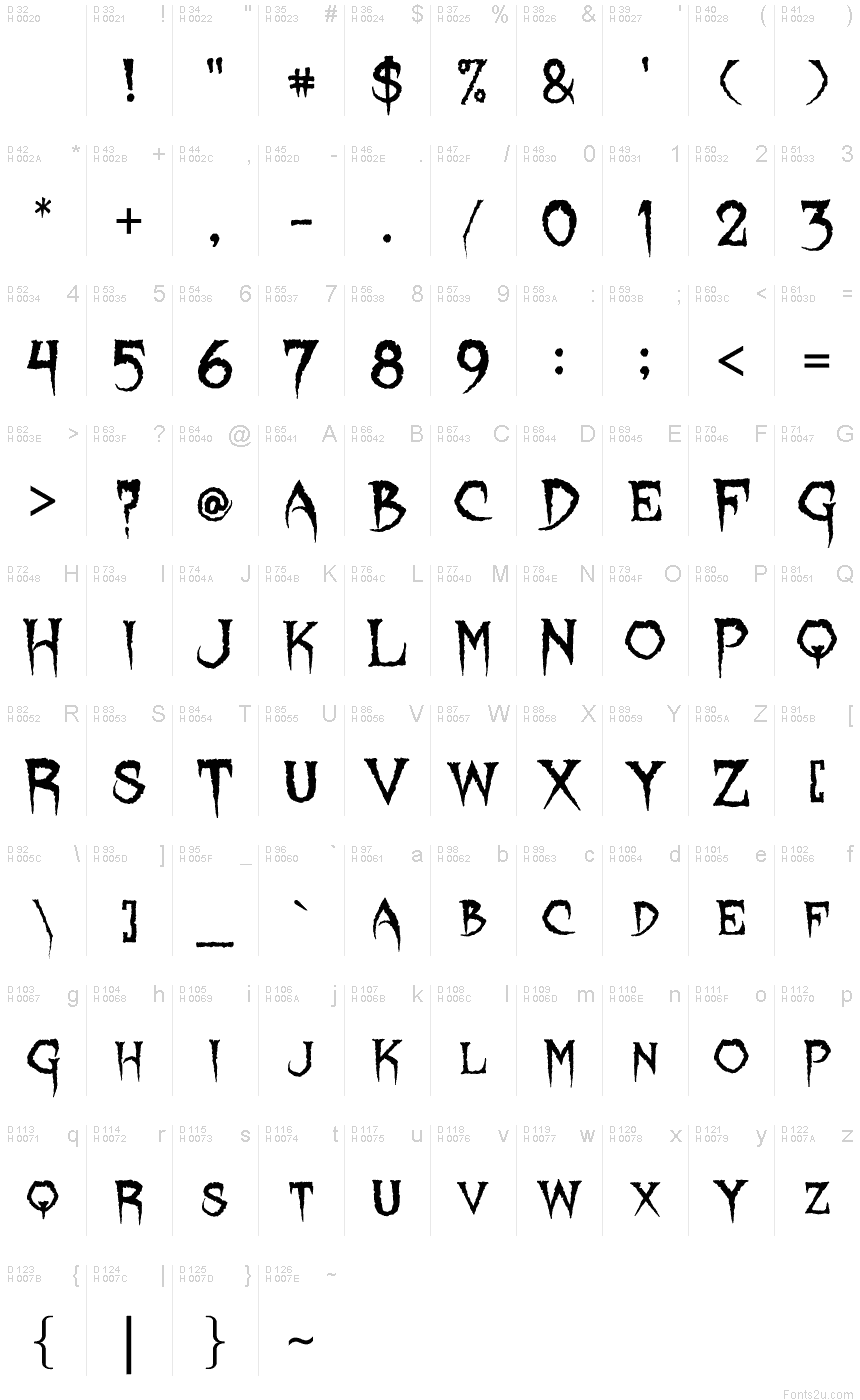
Lycanthrope by Sinister Visions is a free horror display font with ragged, blade-like letterforms. Its uneven strokes shift between broad torn shapes and thin scratches, and pointed extensions give the lettering a feral, hand-cut silhouette.
Horror film posters are its clearest setting, since the rough contours resemble claw marks and distressed title art. The same aggressive texture suits metal merchandise, dark fantasy game covers, and haunted attraction graphics, where it can become part of an illustrated emblem or a deliberately menacing brand identity.
Lycanthrope Font by Chad Savage
Created in 2009 and hand-lettered shortly after Halloween.